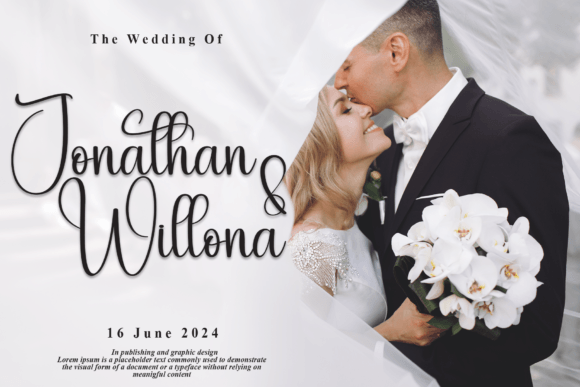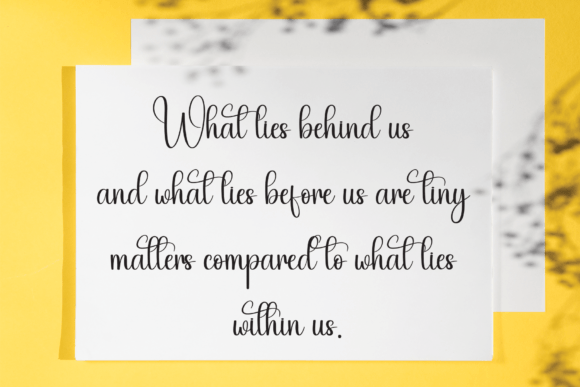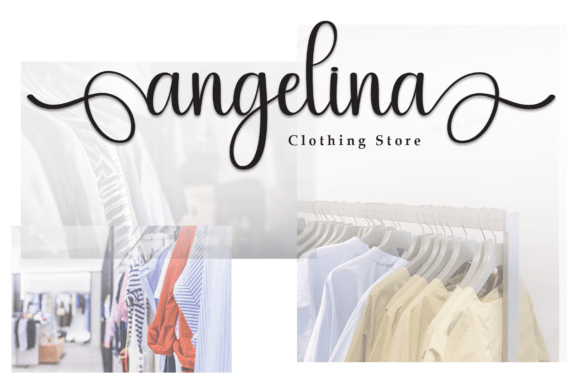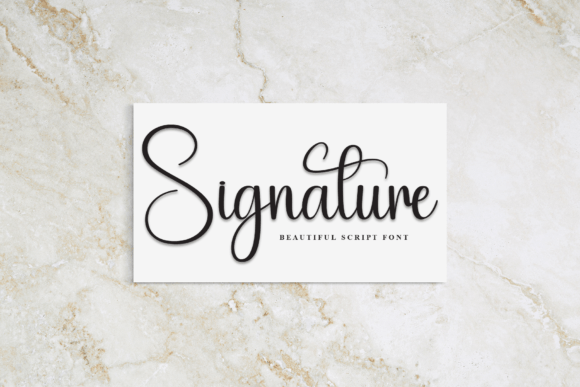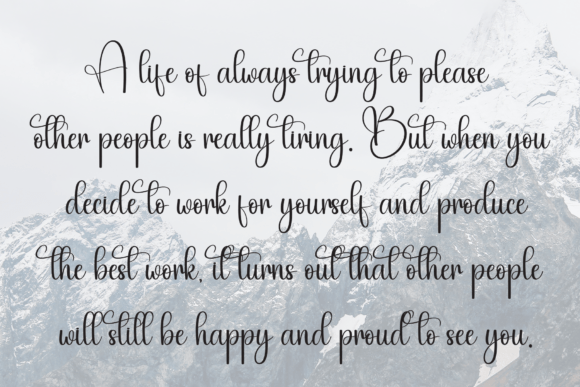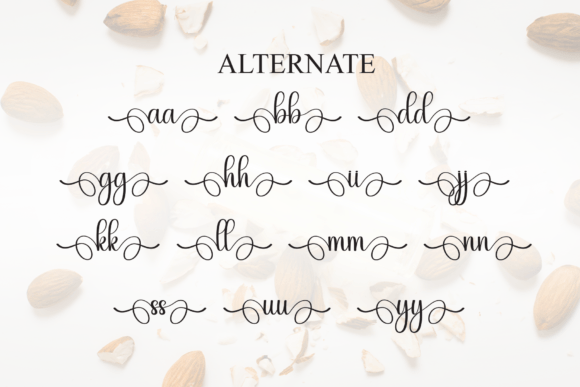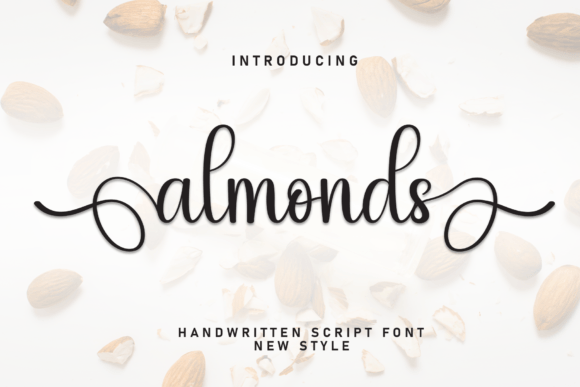
Introducing Almonds Font: Elevate Your Designs with Elegance and Sophistication
In the world of typography, few fonts manage to capture the essence of elegance and sophistication as beautifully as Almonds Font. This stylish and incredibly elegant script font has taken the design community by storm, offering a versatile and refined aesthetic that can elevate any project. Whether you’re a designer looking for the perfect font for your next client’s wedding invitation or a crafter seeking to add a touch of sophistication to your handmade cards, Almonds Font is the perfect choice.
What Makes Almonds Font So Special?
Almonds Font boasts a unique blend of classic elegance and modern sophistication. Its flowing script lines and delicate curves make it an ideal choice for designs that require a touch of refinement. The font’s versatility is one of its standout features, allowing it to be used across a wide range of applications. From wedding invitations and thank you cards to quotes, greeting cards, logos, and business cards, Almonds Font can add a level of sophistication and elegance that sets your designs apart.
Wedding designers and event planners, rejoice! Almonds Font is a dream come true for anyone looking to create stunning wedding invitations, save-the-date cards, and event branding. The font’s elegant script lines and refined aesthetic make it perfect for formal events, adding a touch of luxury and sophistication to your designs. Imagine setting the tone for a fairytale wedding with beautifully designed invitations that feature Almonds Font – it’s sure to leave a lasting impression on your guests.
A Crafter’s Best Friend
For crafters and DIY enthusiasts, Almonds Font offers endless possibilities for creative expression. Add a touch of elegance to your handmade cards, scrapbooking projects, and journaling pages with this beautiful script font. The font’s readability and flowing lines make it perfect for creating quotes, inspirational messages, and personal notes that are sure to delight friends and family.
Why Designers Love Almonds Font
Designers appreciate fonts that are versatile, easy to work with, and offer a unique aesthetic. Almonds Font checks all these boxes and more. Its clean lines, elegant curves, and refined aesthetic make it perfect for a wide range of design projects, from branding and advertising to packaging and editorial design. The font’s scalability is also a major advantage, allowing it to be used across various mediums without losing its elegance and sophistication.
Key Features of Almonds Font
- Elegant Script Lines: Almonds Font features beautiful, flowing script lines that add a touch of sophistication to any design.
- Versatile: The font is perfect for a wide range of applications, from wedding invitations and greeting cards to logos and business cards.
- Readability: Almonds Font is highly readable, making it perfect for body text, quotes, and other written content.
- Scalability: The font is scalable, allowing it to be used across various mediums without losing its elegance and sophistication.
Get Creative with Almonds Font
In conclusion, Almonds Font is a stylish and incredibly elegant script font that can add a touch of sophistication to any design. Its versatility, readability, and scalability make it perfect for a wide range of applications, from wedding invitations and greeting cards to logos and business cards. Designers and crafters alike will love working with Almonds Font, which offers endless possibilities for creative expression. So why not give it a try and see how Almonds Font can elevate your designs to the next level?